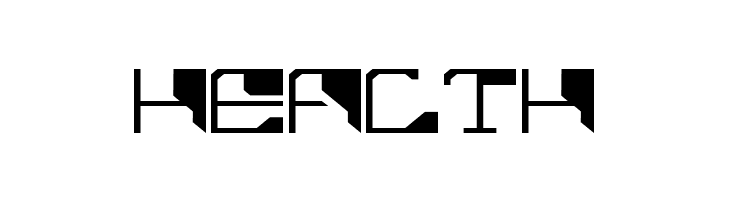
A bold, geometric font with angular lines and a modern block-like appearance.
Qoency Italic Demo Font
Font by
glyphstyle
A sleek, modern italic font with smooth curves and elegant slant.
TT Interphases Pro Mono Trl Bold Font
Font by TypeType Foundry
A bold, modern monospaced font with clear, uniform characters.
Pixel Book Font
Font by Galdino Otten Fonts - www.galdinootten.com - Personal-use only. For commercial use please contact owner.
Digital Computer Font
InermediaSTUDIO
A digital-style font with segmented characters, evoking LED displays.
Engebrechtre Expanded Bold Font
A bold, expanded font with strong, consistent strokes and excellent legibility.
Feijoada Font
Font by Chequered Ink
A playful, bold font with a hand-drawn, friendly appearance.
Westroon Demo Font
Font by
glyphstyle
A bold, rounded font with a playful and robust appearance.
Engebrechtre Expanded Font
A modern, sleek font with clean lines and a slightly condensed style.
Pixel Draft Font